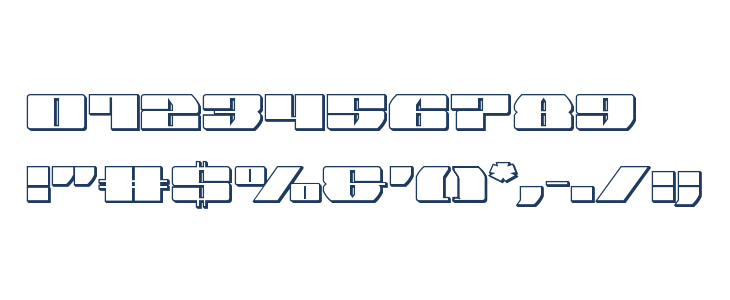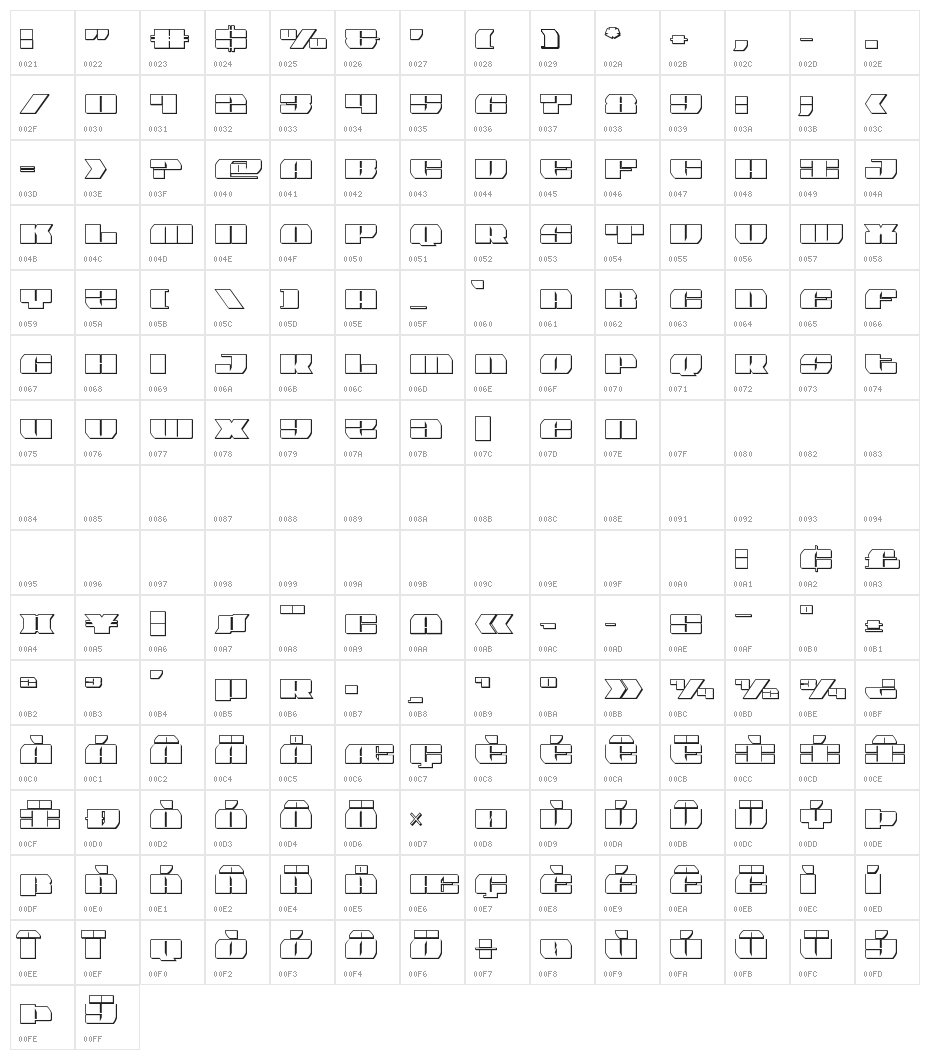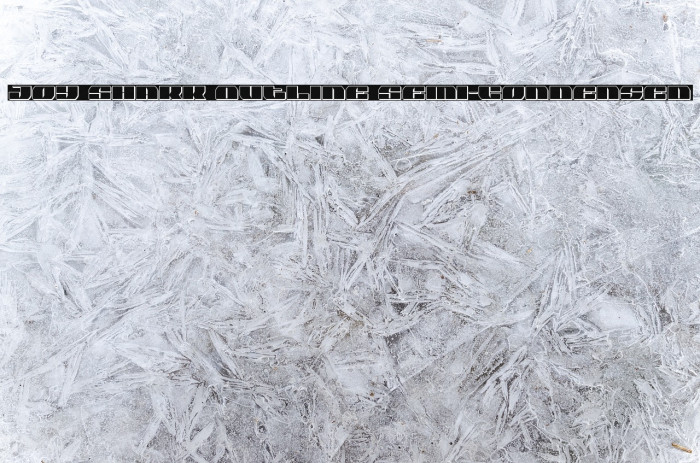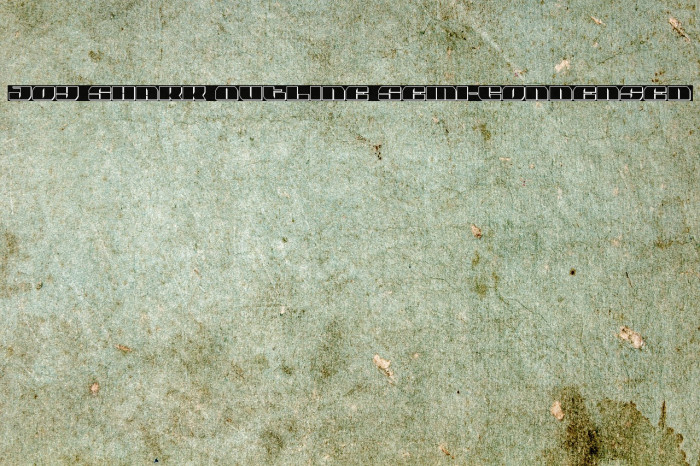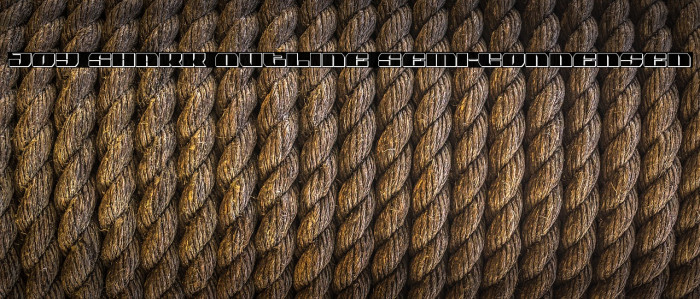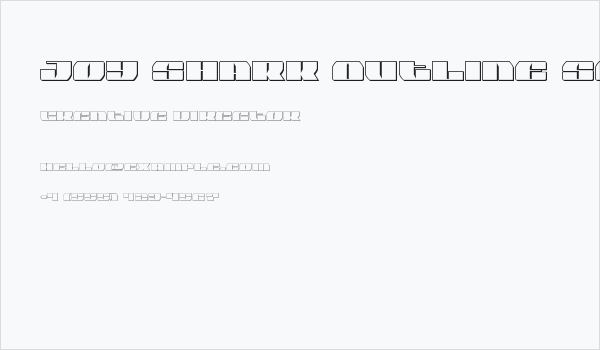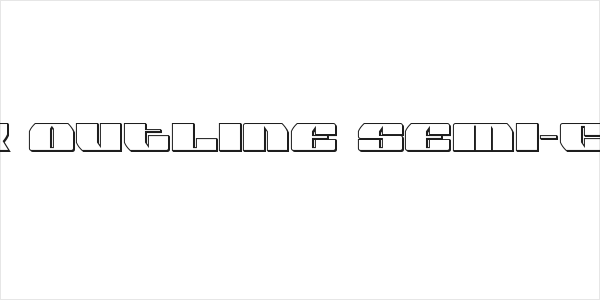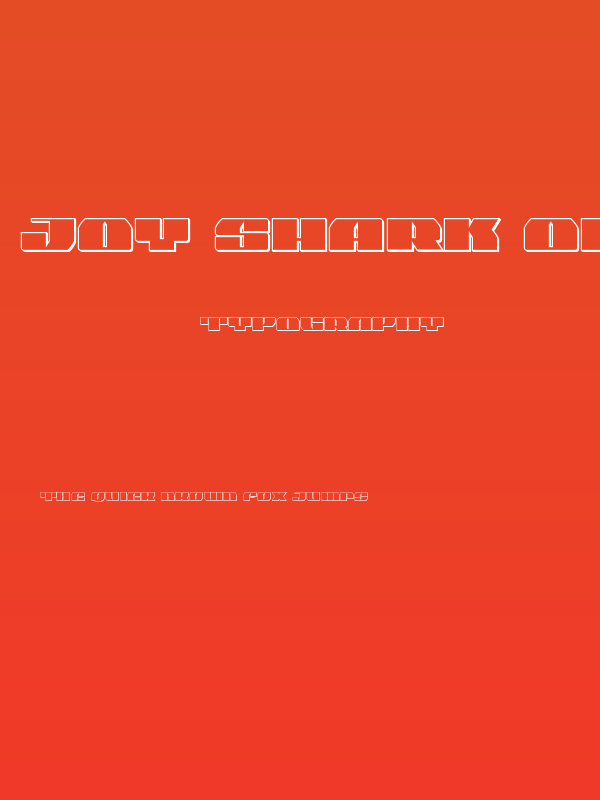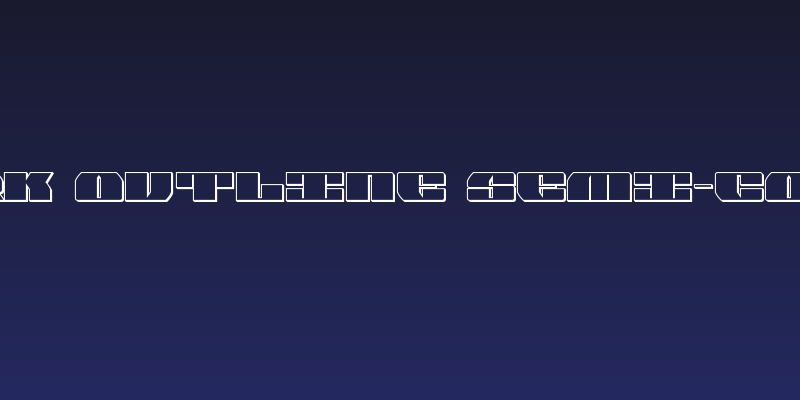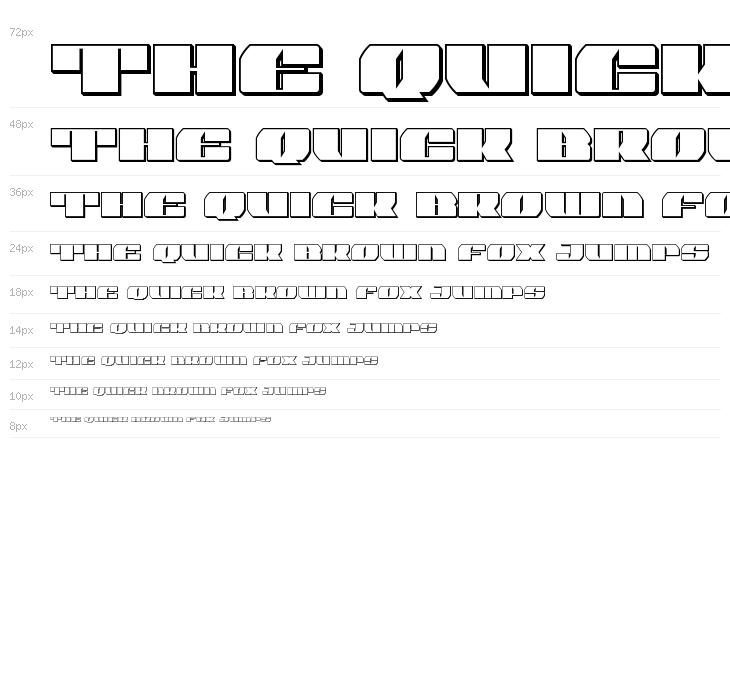
Joy Shark Outline Semi-Condensed Font
Joy Shark Outline Semi-Condensed Description
This font features a bold, geometric design with a distinct outline style. The characters are semi-condensed, giving them a compact appearance while maintaining readability. The uppercase and lowercase letters share a consistent blocky structure, with sharp angles and straight lines. The numbers and special characters follow the same design principles, ensuring uniformity across all glyphs. This font's unique outline effect adds a layer of depth, making it stand out in various design contexts.